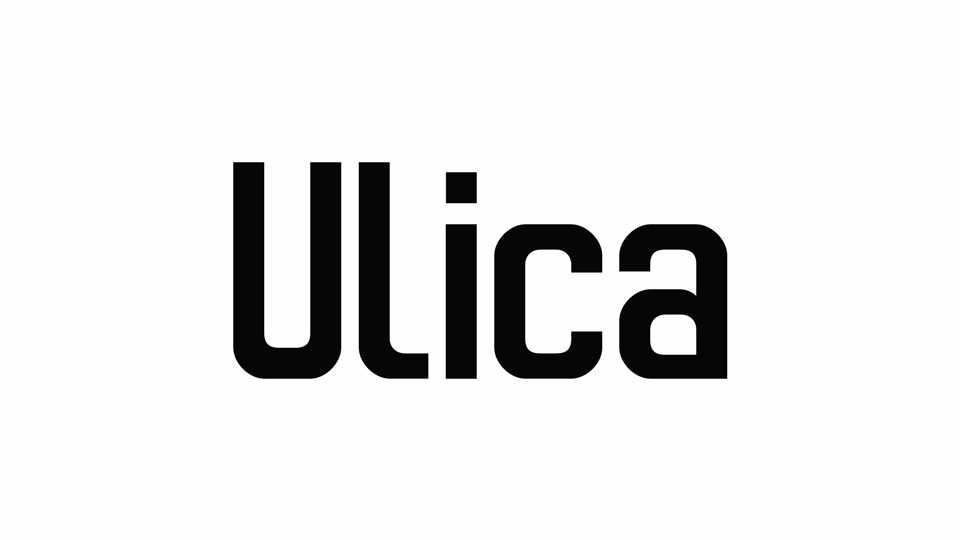
Download Ulica font, a geometric sans serif typeface based on a font used in Czech and Slovak street signs. Ulica is a great choice headlines, posters and display usage.
Designer: Andrej Shadura